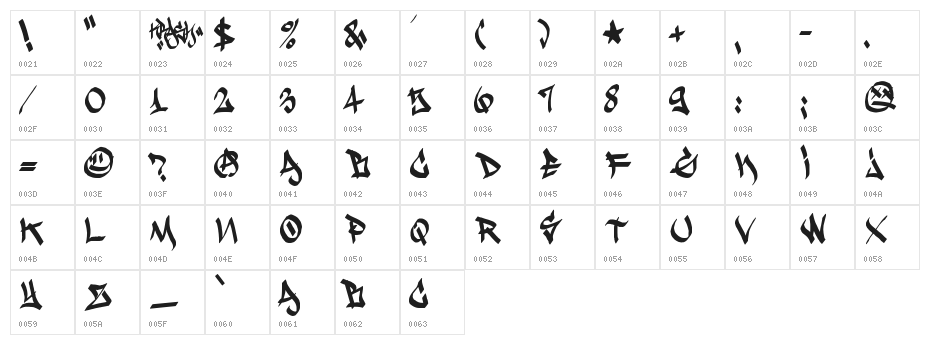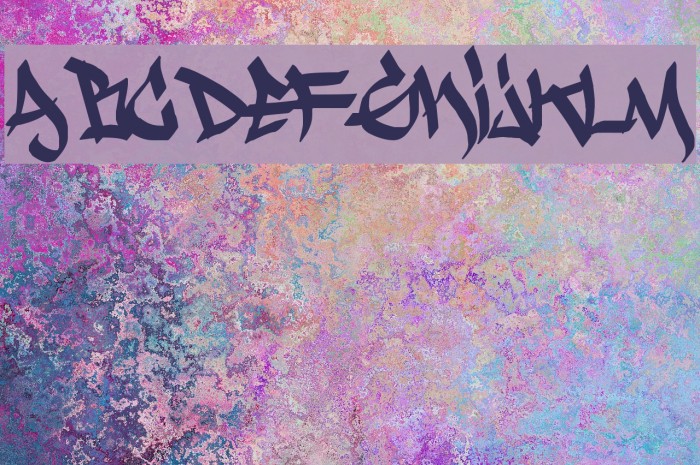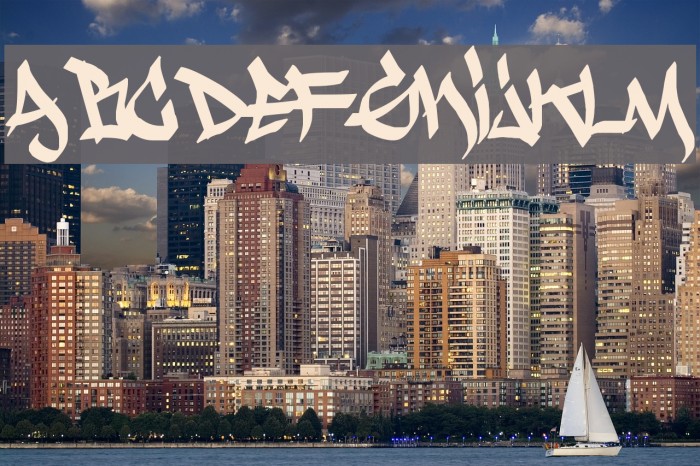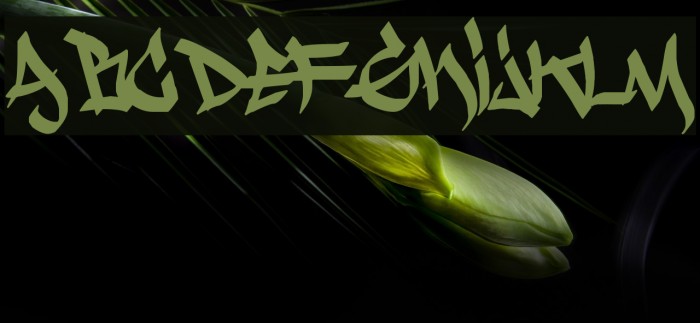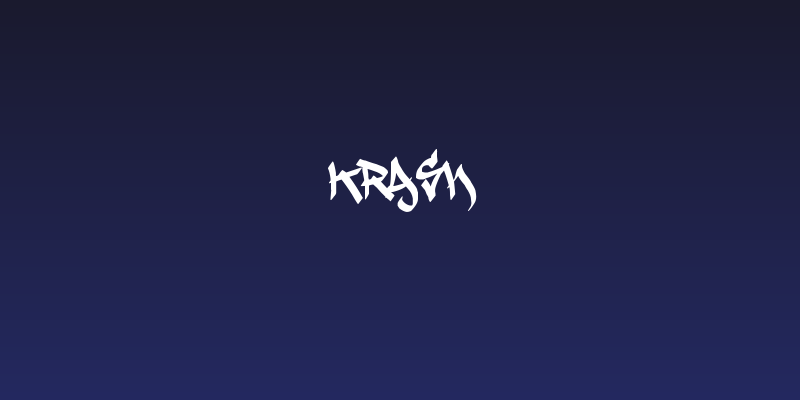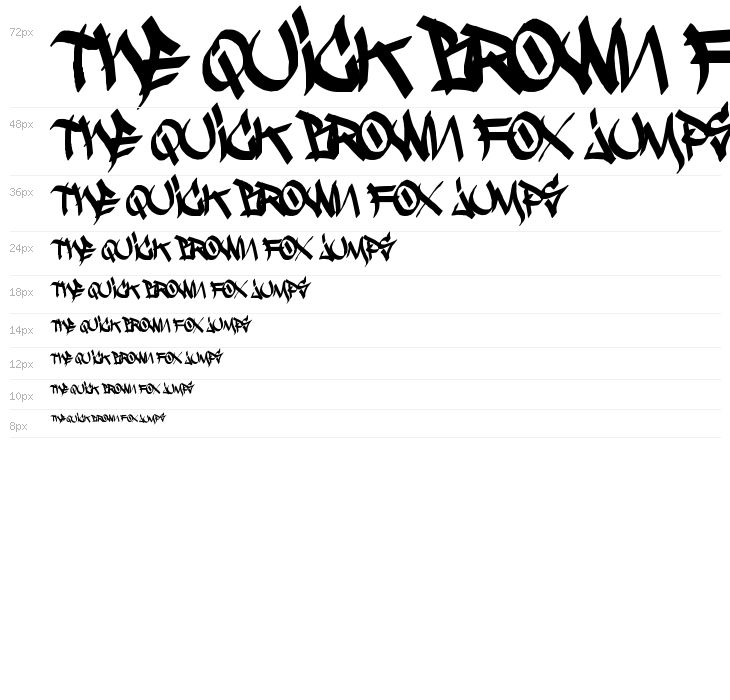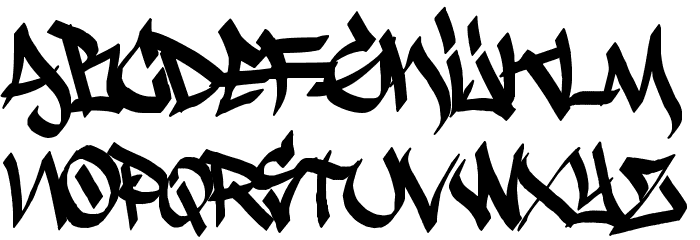
Krash Font
Krash Description
This font exhibits a bold and dynamic graffiti style, characterized by sharp angles and dramatic strokes. The letters are highly stylized, with an aggressive and energetic appearance, reminiscent of street art. The uppercase and lowercase letters share a consistent aesthetic, with exaggerated curves and pointed edges. Numbers and special characters maintain the same boldness and artistic flair, making them stand out. This font is designed to capture attention and convey a sense of rebellion and creativity.
Overall StyleModern, Urban
Proposed ProjectsIdeal for urban-themed designs, streetwear branding, music album covers, and event posters.